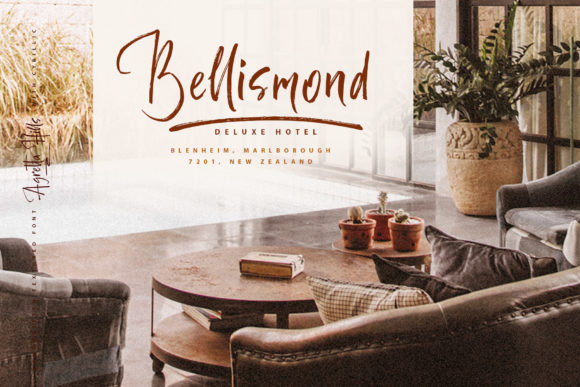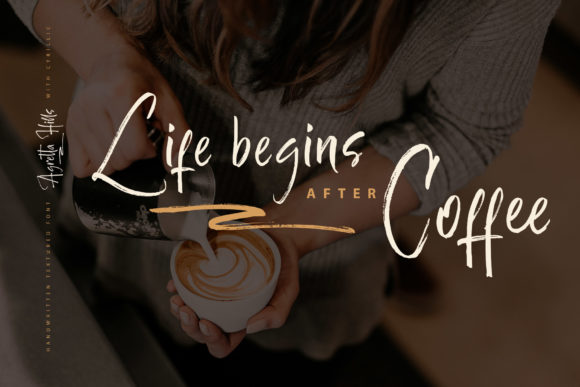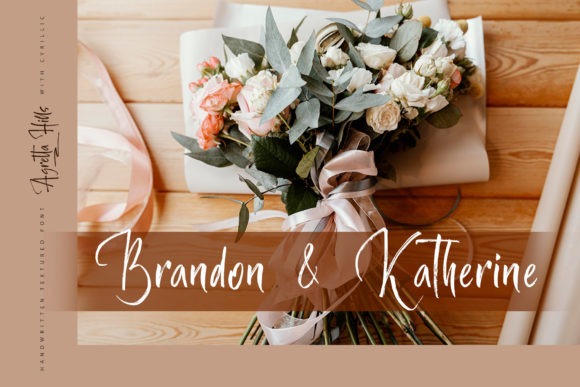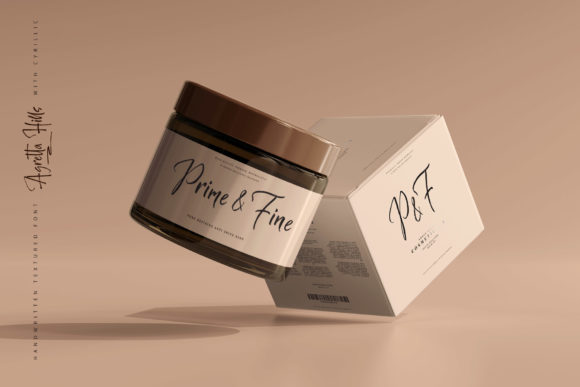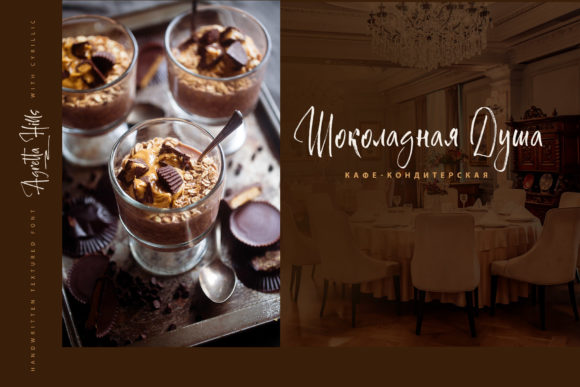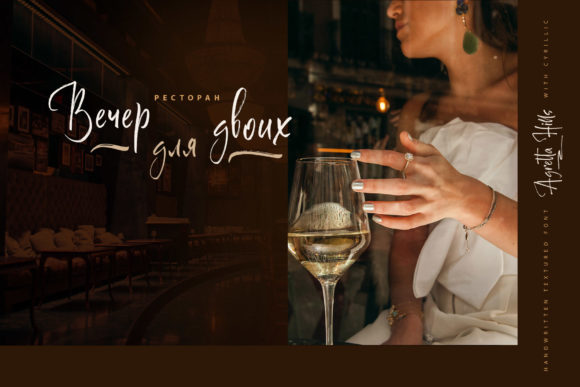
Introducing Agretta Hills Font: The Perfect Casual and Brushed Handwritten Font for Your Branding Projects
Are you looking for a font that can add a personal touch to your branding projects? Do you want to create a unique and eye-catching design that stands out from the crowd? Look no further than Agretta Hills Font, a casual and brushed handwritten font that is perfect for a wide range of applications.
What is Agretta Hills Font?
Agretta Hills Font is a carefully crafted handwritten font that features a casual and relaxed style. The font is designed to look like it was written with a brush, giving it a unique and organic feel. The letters are smooth and flowing, with a subtle texture that adds depth and character to the font.
What Makes Agretta Hills Font So Versatile?
Agretta Hills Font is an incredibly versatile font that can be used in a wide range of contexts. Whether you’re creating a logo, designing a t-shirt, or developing a sports brand, this font is sure to impress. The casual and relaxed style of the font makes it perfect for:
- Logos: Create a unique and memorable logo that stands out from the crowd.
- T-shirt printing: Design eye-catching t-shirts that are perfect for casual wear.
- Sport designs: Create dynamic and energetic sports designs that inspire and motivate.
- Branding projects: Develop a consistent brand identity that reflects your values and personality.
Why Choose Agretta Hills Font?
There are many reasons why Agretta Hills Font is the perfect choice for your branding projects. Here are just a few:
- Unique and eye-catching: The font’s casual and brushed style makes it stand out from more traditional fonts.
- Highly versatile: The font can be used in a wide range of contexts, from logos to t-shirt printing.
- Easily readable: The font is clear and easy to read, even at small sizes.
- Customizable: The font can be easily customized to fit your brand’s unique style and personality.
How to Use Agretta Hills Font in Your Designs
Using Agretta Hills Font in your designs is easy. Here are a few tips to get you started:
- Pair it with other fonts: Combine Agretta Hills Font with other fonts to create a unique and interesting contrast.
- Experiment with colors: Try out different colors and textures to add depth and interest to your design.
- Play with sizes: Use different font sizes to create visual hierarchy and emphasis in your design.
Agretta Hills Font is a versatile and eye-catching font that is perfect for a wide range of branding projects. Its casual and brushed style makes it stand out from more traditional fonts, while its readability and customizability make it a practical choice for designers and crafters. Whether you’re creating a logo, designing a t-shirt, or developing a sports brand, Agretta Hills Font is sure to impress.